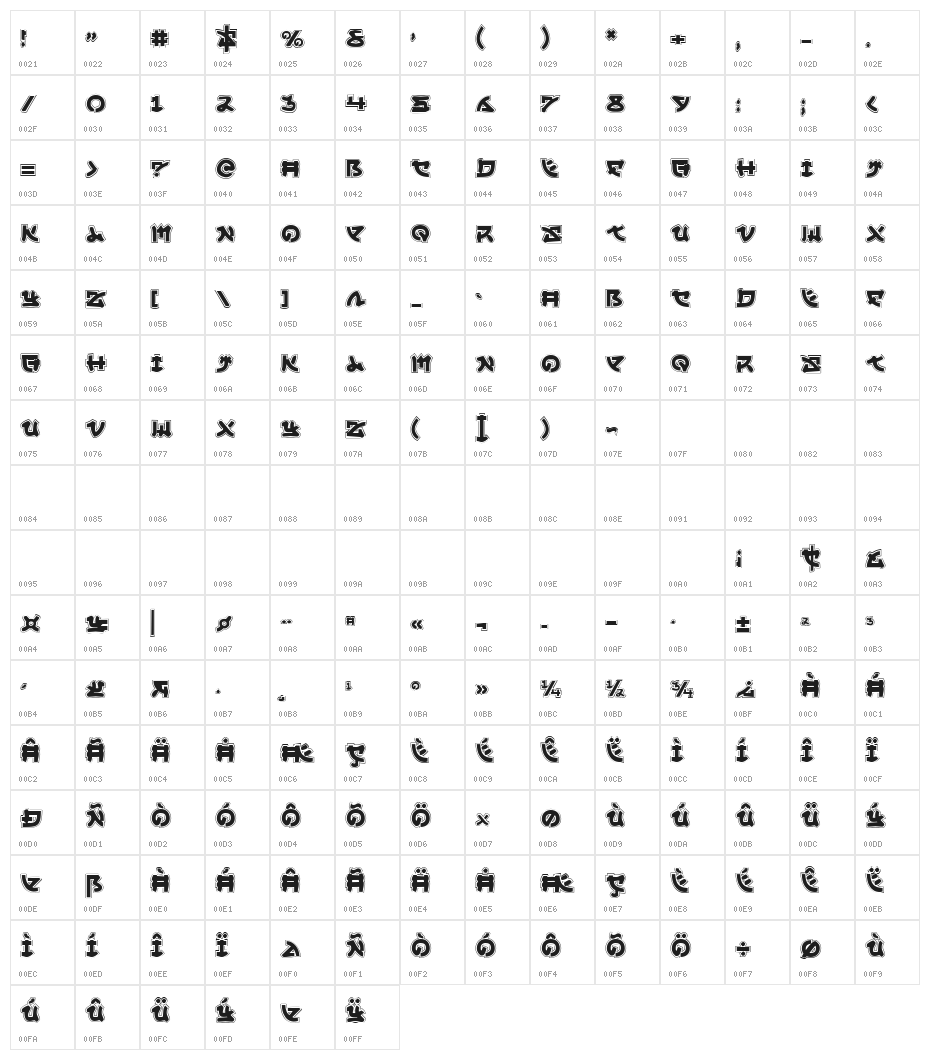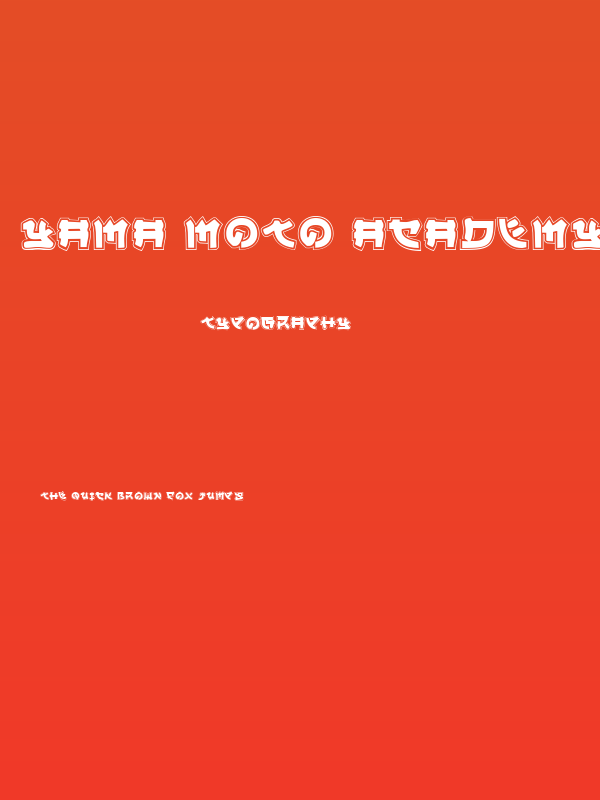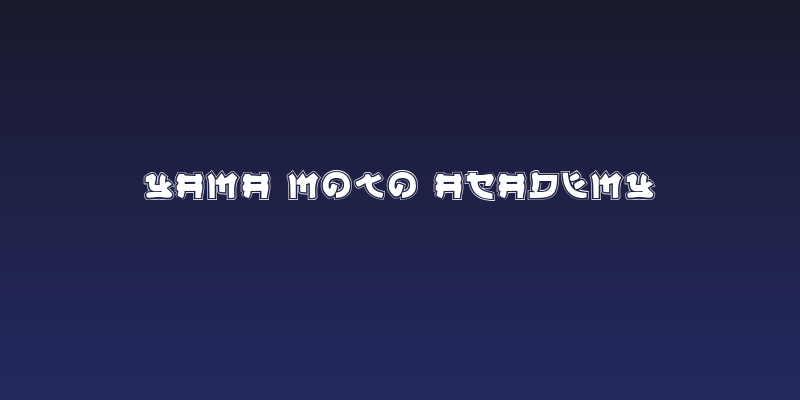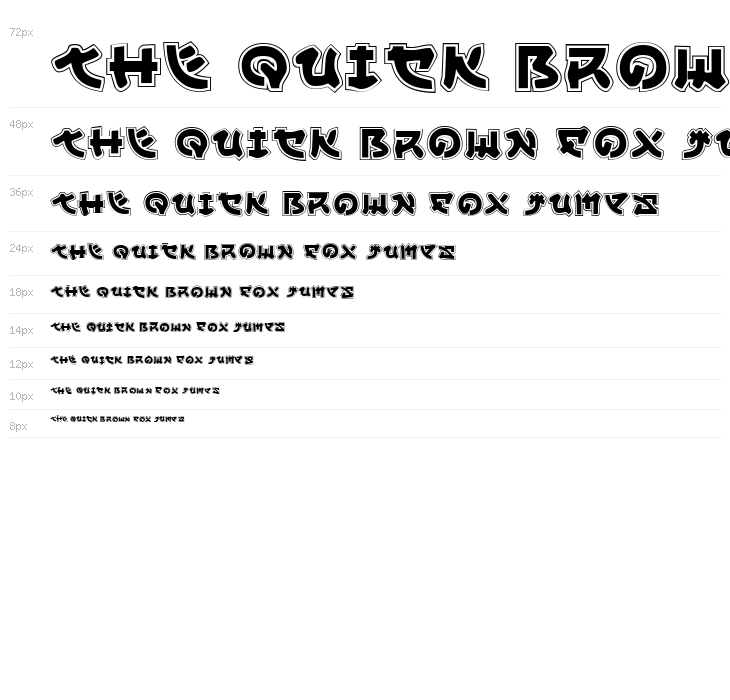
Yama Moto Academy Font
Yama Moto Academy Description
This font features a bold and dynamic style with a strong presence. Each character is outlined, creating a striking contrast between the thick, solid interior and the surrounding space. The design incorporates angular and geometric elements, giving it a futuristic and edgy appearance. The uppercase and lowercase letters maintain a consistent style, while the numbers and special characters complement the overall aesthetic. This font is ideal for projects that require a bold statement and a modern, unconventional look.
| Overall Style | Futuristic, Edgy |
| Proposed Projects | Ideal for video game titles, sci-fi movie posters, tech branding, and edgy graphic designs. |